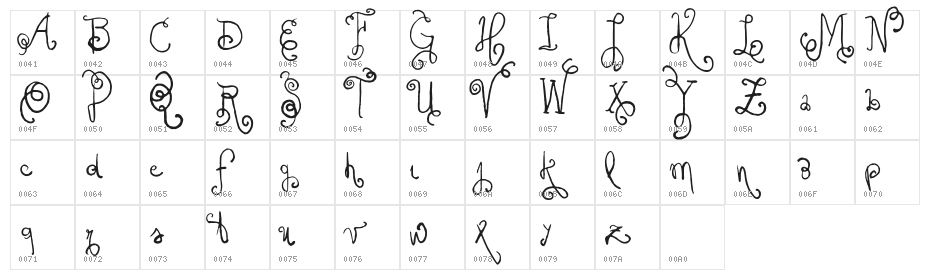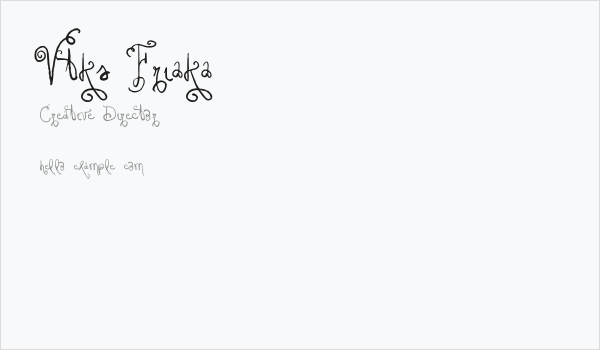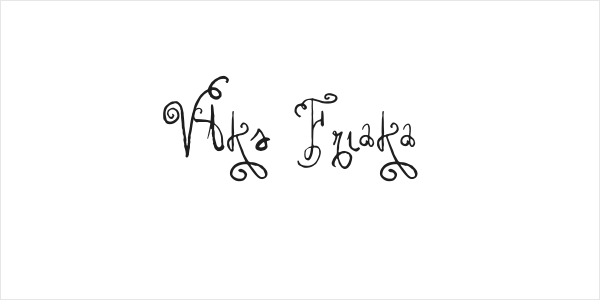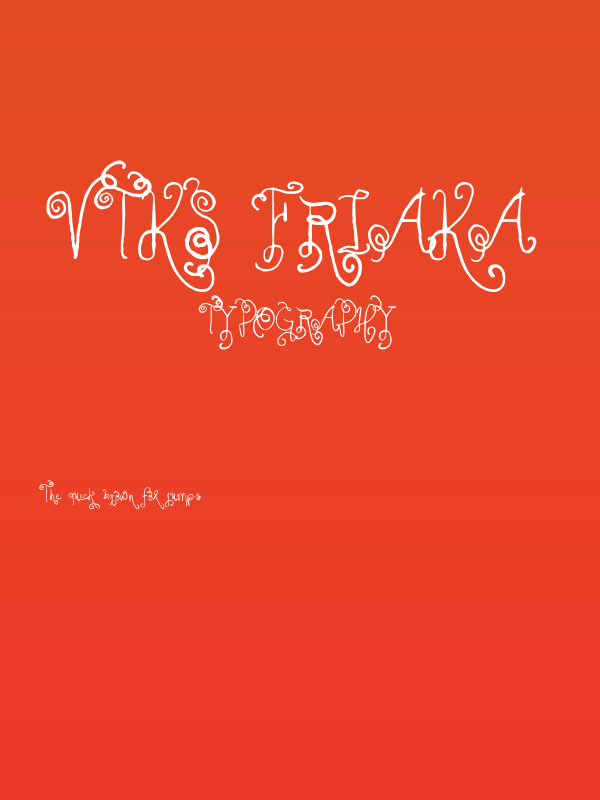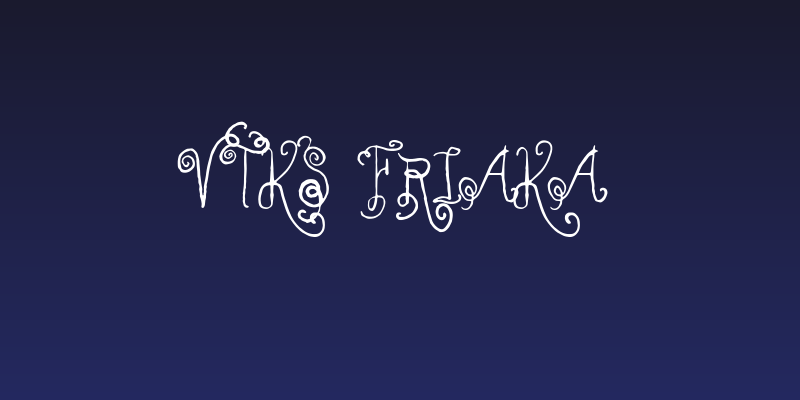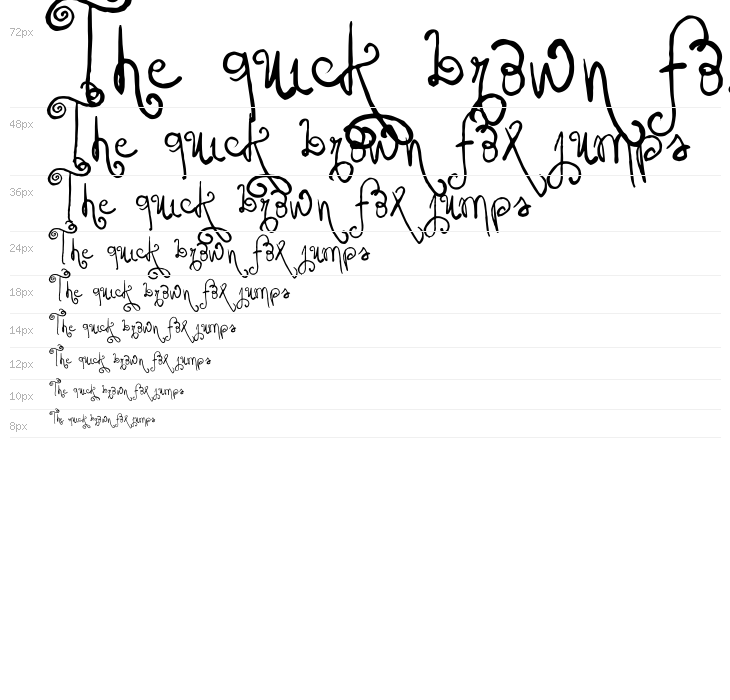
Vtks Friaka Font
Vtks Friaka Description
This font features an intricate and decorative style, characterized by elaborate swirls and curls that extend from the main strokes of each letter. The uppercase letters are particularly ornate, with each character displaying unique embellishments that give the font a whimsical and artistic flair. The lowercase letters maintain a similar decorative style but are slightly more subdued, allowing for better readability. The numbers and special characters follow the same ornate design, ensuring consistency across all glyphs. This font is ideal for projects that require a touch of elegance and creativity, such as invitations, greeting cards, or artistic branding.
| Use Case | Headlines, Artistic projects, Invitations |
| Proposed Projects | Ideal for invitations, greeting cards, artistic branding, and decorative projects. |